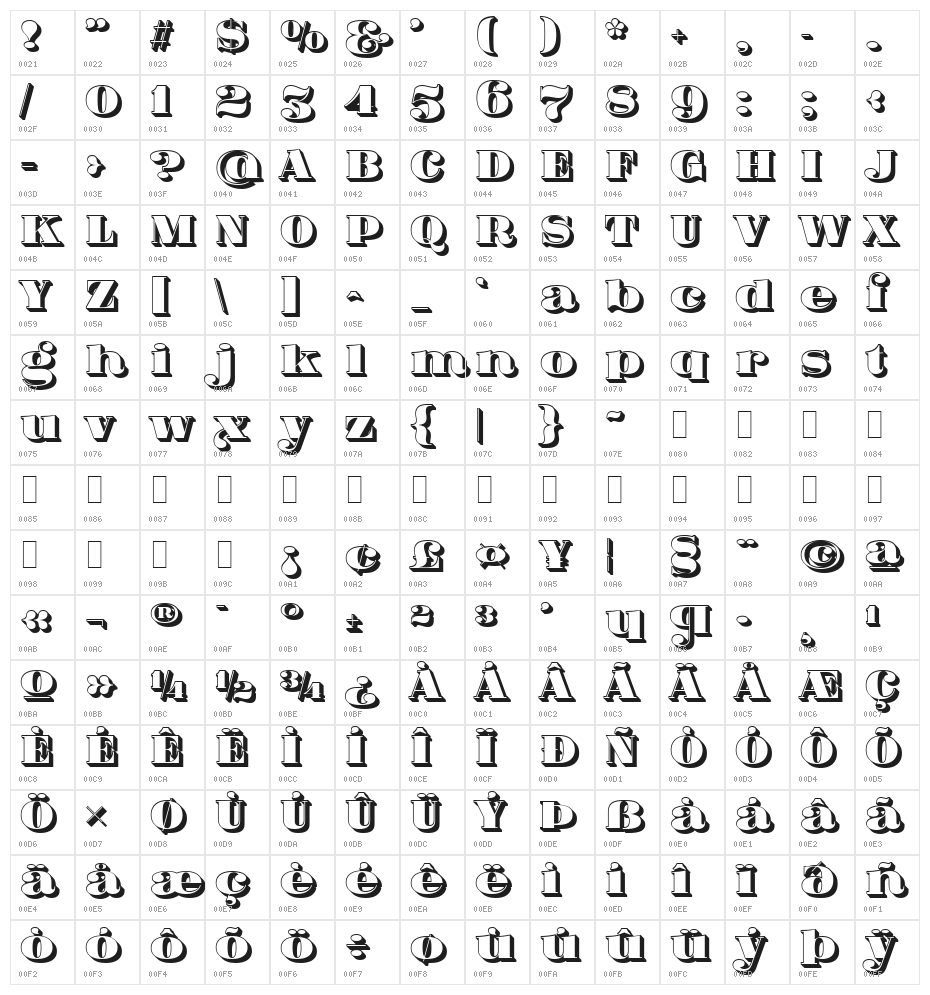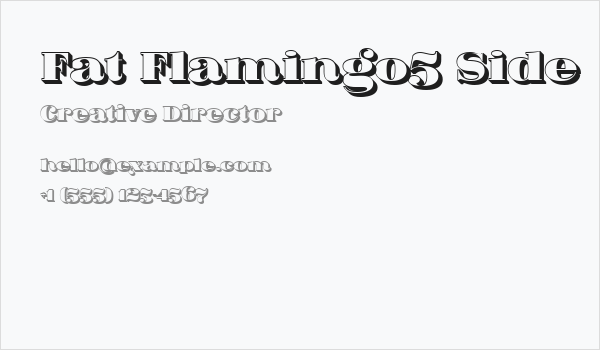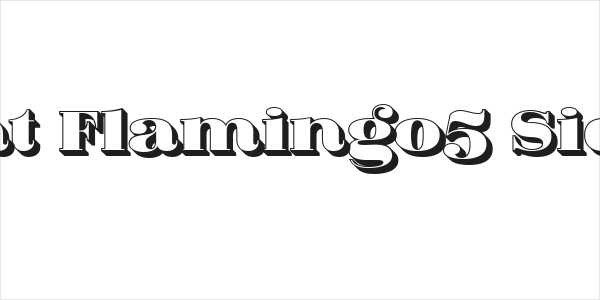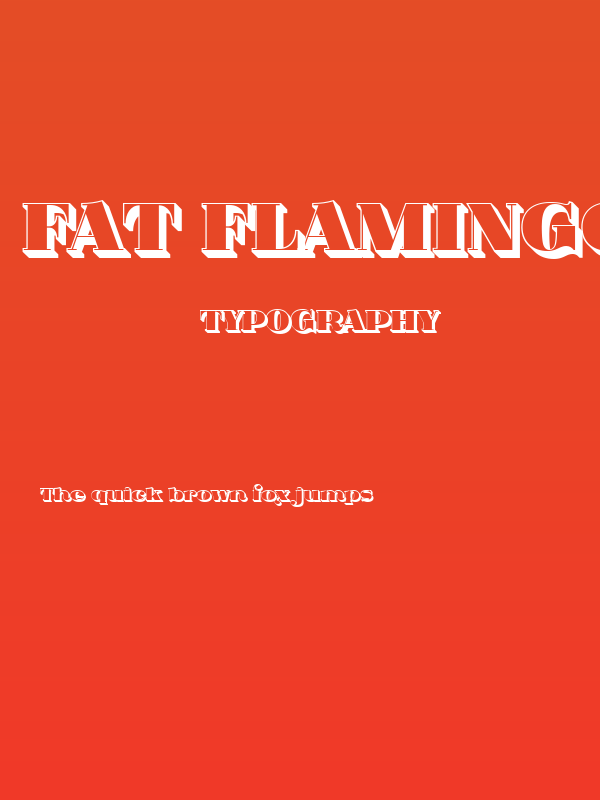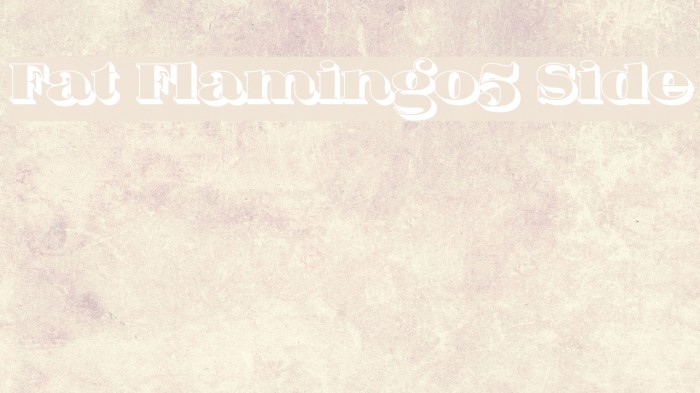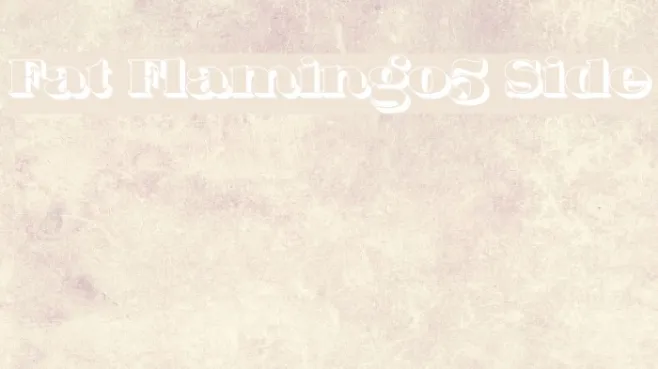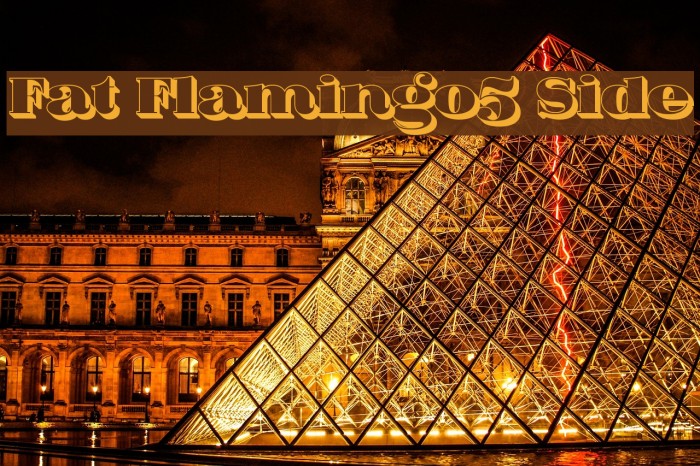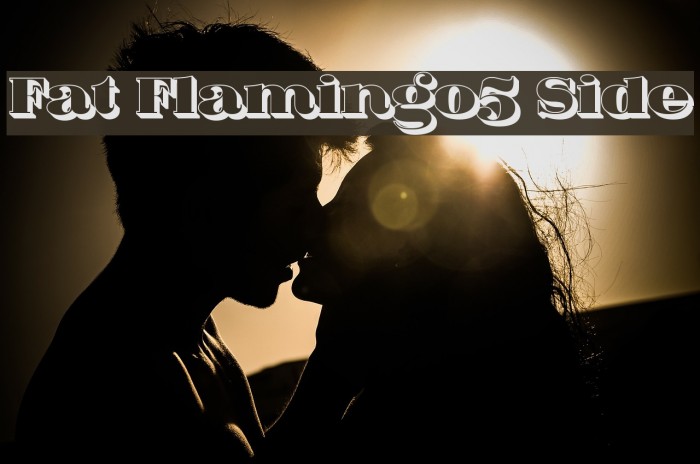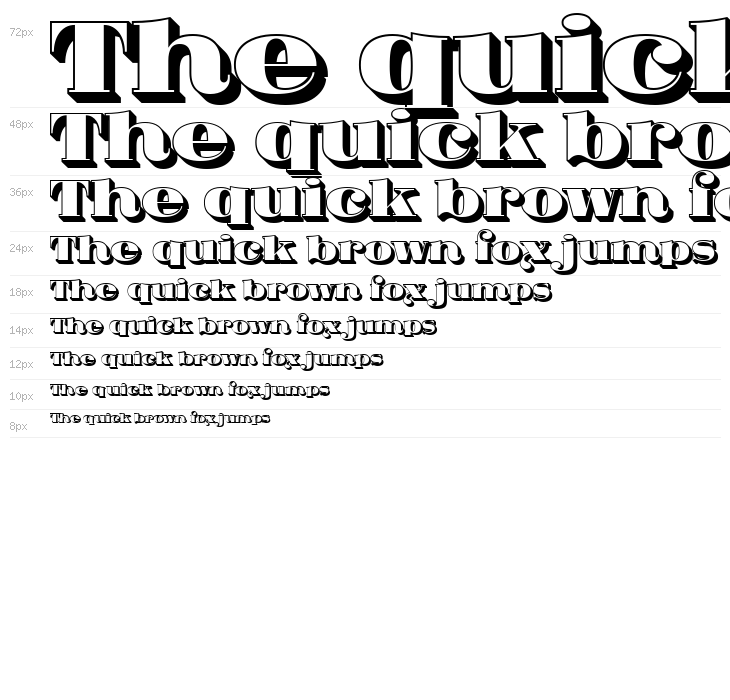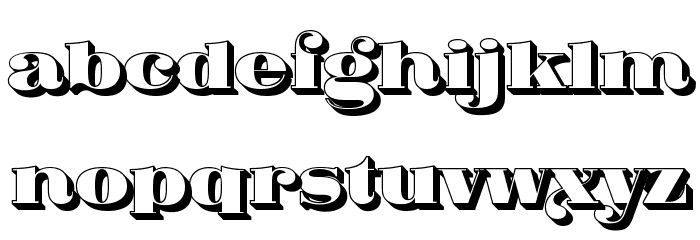
Fat Flamingo5 Side Font
Fat Flamingo5 Side Description
This font features a bold and dramatic style with a three-dimensional effect, achieved through a shadow that gives depth to each character. The uppercase and lowercase letters are robust, with thick strokes and a strong presence. The numbers and special characters maintain this boldness, ensuring consistency across all glyphs. The font's design is eye-catching, making it suitable for impactful visual statements. The characters have a playful yet sophisticated look, with a slight retro vibe due to the shadowing technique.
| Proposed Projects | Ideal for poster designs, branding projects, headlines, and any creative work that requires a strong visual impact. |